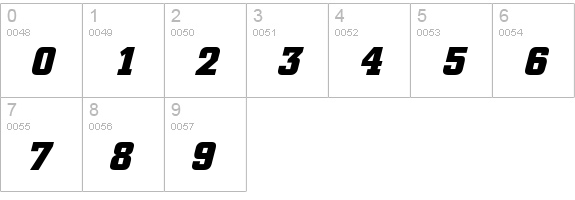
Berthold City Bold Italic Font Details
Berthold City Bold Italic is a strong, high-contrast, italic variant in the Berthold typeface family \xE2\x80\x94 well suited to headlines, attention-grabbing titles, and strong calls-to-action.
Berthold City Bold Italic is a striking and modern typeface that exudes confidence and sophistication. With its bold weight and sleek italic styling, this font is perfect for making a bold statement in your designs. Whether you're working on a branding project, poster design, or website header, Berthold City Bold Italic will add a touch of elegance and flair. The best part? Berthold City Bold Italic is available for free download at FontsMarket.com! This means you can easily access this versatile font and incorporate it into your projects without any hassle. Don't miss out on the opportunity to enhance your designs with the timeless appeal of Berthold City Bold Italic. Download it today and let your creativity shine!